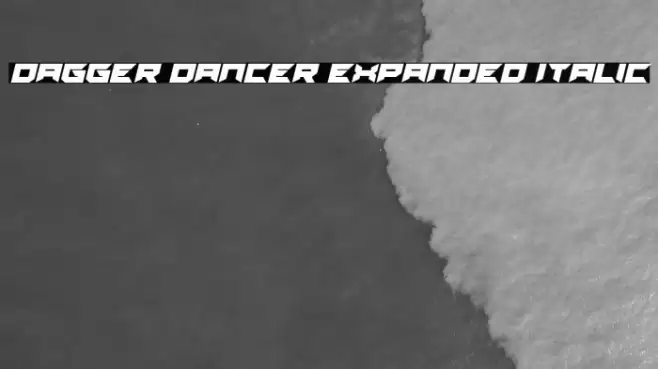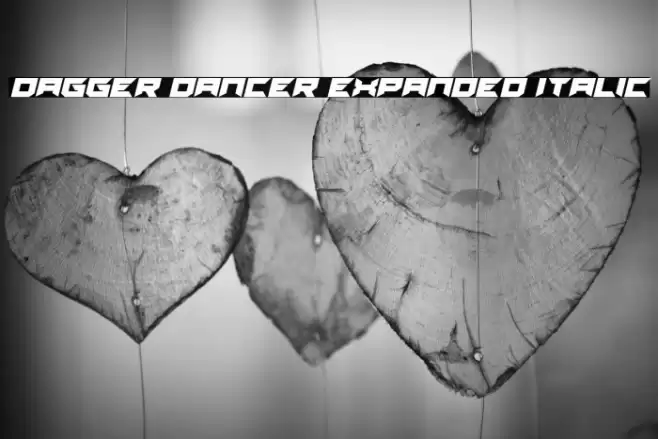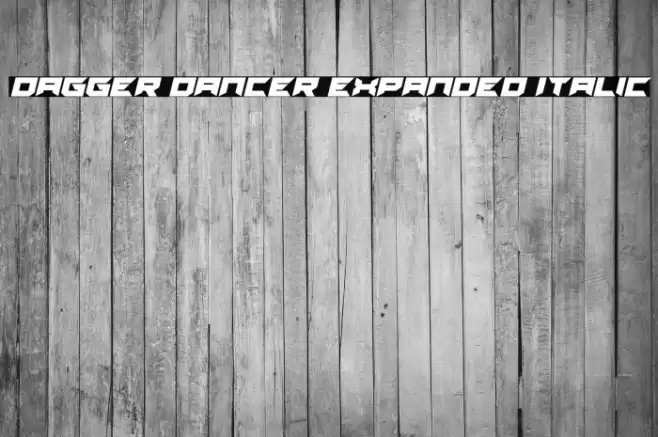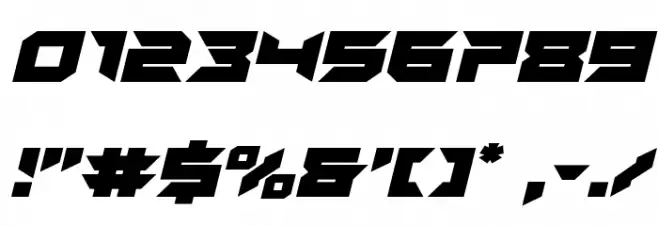
Dagger Dancer Expanded Italic Font
Dagger Dancer Expanded Italic Description
This font features a bold, angular design with a futuristic and dynamic appearance. The characters are sharply cut with geometric precision, creating a sense of movement and energy. The italic style adds a slanted, forward-leaning aspect, enhancing its modern and aggressive look. The expanded width gives the letters a wide stance, making them stand out prominently. This font is ideal for projects that require a strong, impactful visual presence.
A bold, angular, and expanded italic font with a futuristic style from Uncategorized fonts.
- Proposed Projects: Ideal for sci-fi themed designs, video game titles, posters, and branding that requires a bold, modern look.
- Width: Expanded